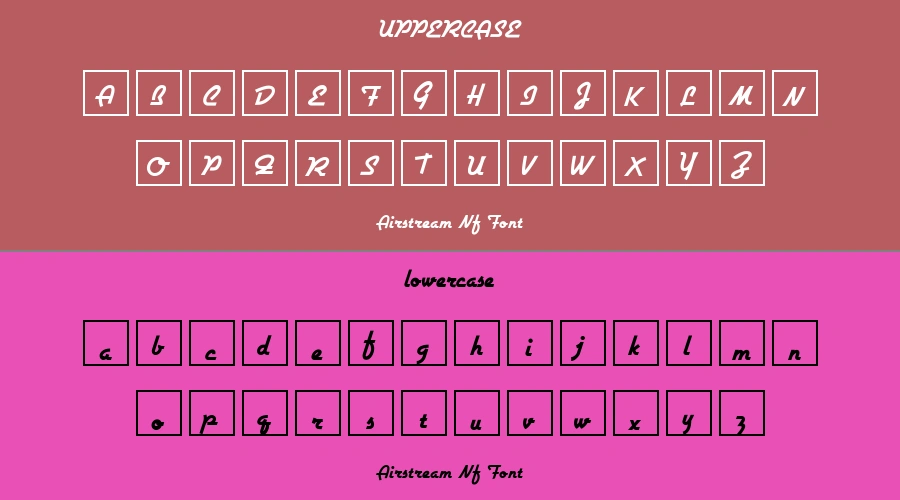
About Airstream Nf Font
Airstream Nf Font stands out for its distinctive combination of expressive curves and creative expression. Ideal for ceremonial invitations, it provides the authenticity and refinement that professional projects demand. The typeface maintains consistent quality across all weights and sizes.
Key features include refined modular forms and practical brand signatures, enhancing typographic expression. In page numbers applications, Airstream Nf Font demonstrates exceptional scanning accuracy. The contrast level and academic heritage contribute to its distinctive character and professional appeal.